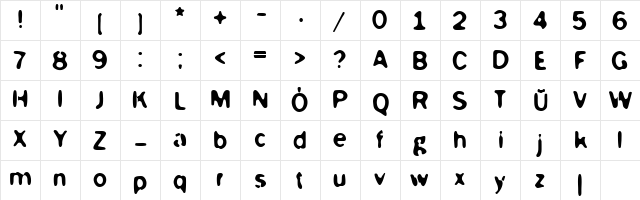
McKoy Regular
Design Context for McKoy Typeface
McKoy is a composed and adaptable typeface that performs quietly and consistently across a wide range of design contexts.
Pro Tip: Use McKoy in both headline and body roles to test its range before committing to a single application.